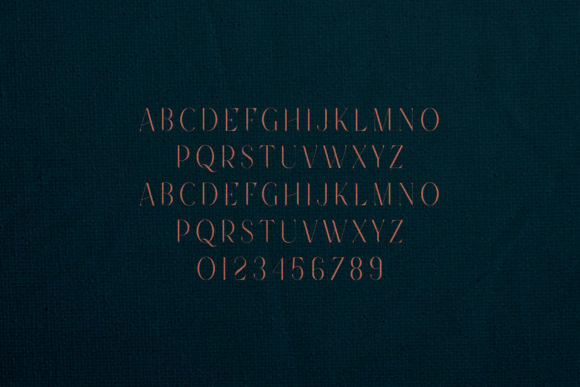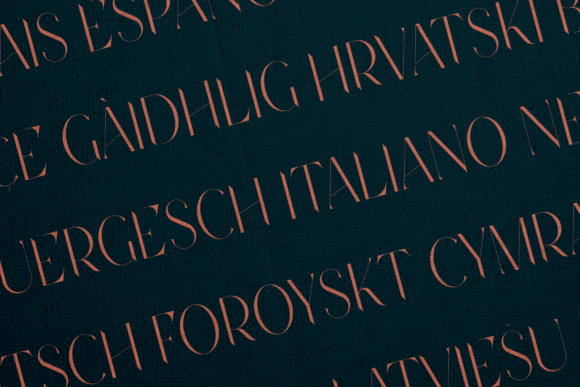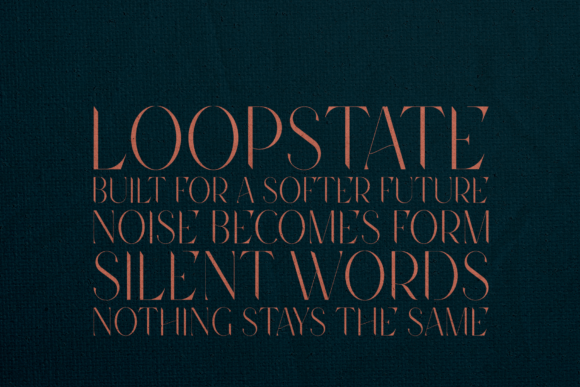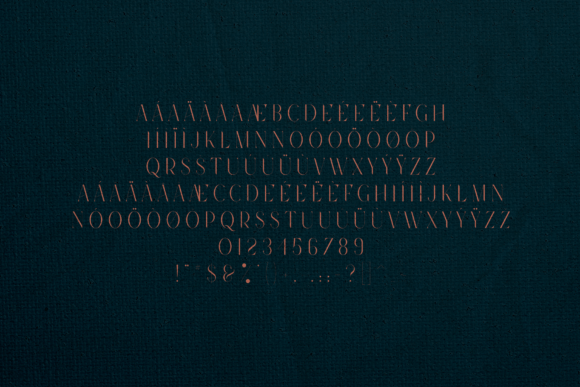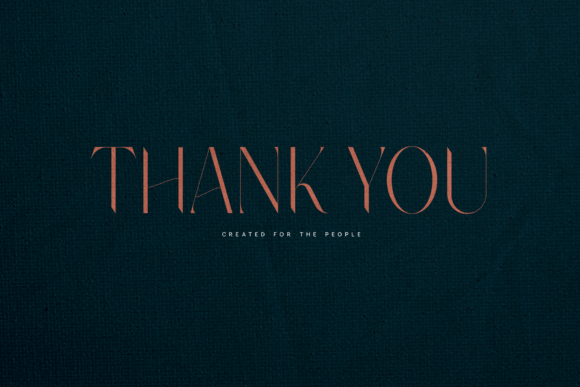
The Elusive Perfect Font: My Journey with Future Flow
I still remember the project like it was yesterday. A high-end fashion brand needed a logo and branding materials that exuded luxury and sophistication. As I scrolled through font after font, I just couldn’t find the one that felt right. That was until I stumbled upon Future Flow, a refined modern serif typeface that caught my eye with its distinctive cut details and elegant flow.
First Impressions: A Love Affair with Future Flow
Future Flow was designed for expressive typography where elegance, luxury, and visual identity matter. Its graceful proportions and stylish cuts make it perfect for editorial design, branding, fashion campaigns, luxury packaging, and modern logo design. The balance between sharp structure and fluid rhythm creates a typeface that feels both futuristic and classic at the same time.
What I Love About Future Flow ✨
- ✅ Elegant and luxurious feel, perfect for high-end branding
- ✅ Unique cut details that give the letters a flowing, sculptural appearance
- ✅ Highly versatile and works well in various design contexts
- ✅ Excellent legibility, even at smaller font sizes
- ⚠️ Some users might find the font a bit too ornate for very casual or playful designs
- ⚠️ Limited availability of certain OpenType features in older software
One of the standout features of Future Flow is its support for OpenType features. These features allow you to customize your typography with stylistic alternates, ligatures, and more. To access these features:
Future Flow was inspired by the works of renowned designers who sought to merge classic elegance with modern flair. The font’s creator aimed to craft a typeface that would evoke a sense of luxury and sophistication while still feeling approachable and versatile.
Q: What makes Future Flow unique?
A: Future Flow’s distinctive cut details and elegant flow set it apart from other serif fonts.
Q: Is Future Flow suitable for body text?
A: While Future Flow is elegant and luxurious, it’s best used for headings and titles. For body text, a more straightforward font might be more suitable.
Q: Does Future Flow support OpenType features?
A: Yes, Future Flow supports various OpenType features, including stylistic alternates, ligatures, and more.